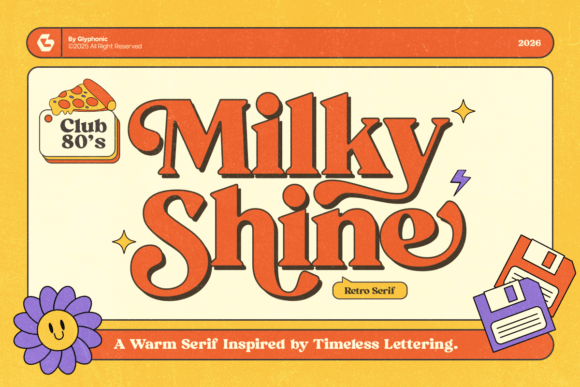
Get Ready to Glow Up Your Designs with a Blast from the Past
Do you remember the thrill of walking into a neon-lit nightclub in the 1980s? The flashing lights, the thumping music, and the infectious energy of the crowd? Those were the nights when fashion, music, and art collided in a kaleidoscope of color and creativity. As a designer, you’re likely no stranger to the enduring allure of retro aesthetics, and that’s where the Gc Milky Shine Font comes in – a vibrant retro serif typeface that’s about to transport your designs back to the heyday of disco and club culture.
With its bold curves, confident contrast, and playful vintage attitude, the Gc Milky Shine Font is a valuable addition to any designer’s toolkit. Whether you’re working on a retro branding project, creating music covers, or designing event posters, this font is sure to bring instant energy and nostalgic charm to your typography.
Gc Milky Shine Font Key Features
- Unique Characteristics: Features a unique blend of modern and vintage elements, with a soft, milky shine effect that adds a touch of elegance to any design
Designer Review: Gc Milky Shine Font
Overall, I have mixed feelings about the Gc Milky Shine Font. There are some aspects where it shines ✨, but also some limitations that hold it back ⚠️.
- The font’s unique, dreamy quality ✨ is perfect for creating a whimsical atmosphere. It’s ideal for designs that need a touch of magic.
- The font’s high x-height and large stroke width make it highly legible, even at smaller sizes ✨.
- The font’s versatility allows it to be used in a wide range of applications, from branding to advertising ✨.
- The font’s irregularities can be distracting ⚠️, especially when used in large blocks of text.
- The font’s bold weight can be a bit too dense, making it difficult to read at smaller sizes ⚠️.
- The font’s lack of subtlety can make it feel over-the-top ⚠️, which may not be suitable for all design projects.
Overall, I think the Gc Milky Shine Font is a great choice for designers who want to add a touch of whimsy to their projects. However, it may not be the best choice for projects that require a more subtle or professional tone.
The Gc Milky Shine Font is perfect for adding a touch of elegance and sophistication to your designs. It’s commonly used in:
- Branding and logo designs.
- Food and beverage packaging.
- Magazine and newspaper layouts.